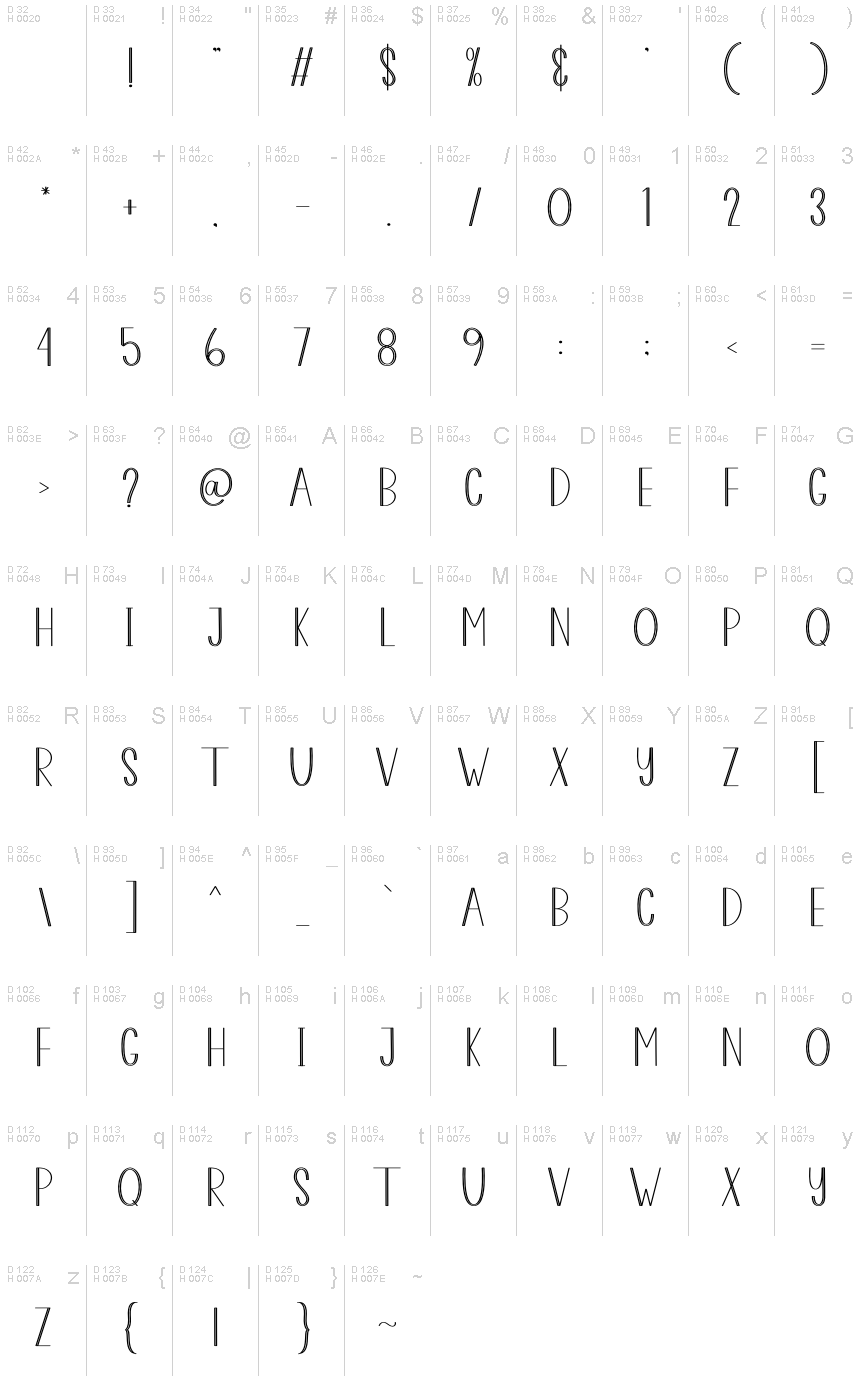
Presure
Presure, designed by Andi Moz, is a captivating handwritten display font that exudes a sweet and friendly allure. This condensed typeface boasts a playful, yet refined aesthetic, with each letter seamlessly blending together to create a harmonious and visually appealing composition. The font's organic, hand-crafted strokes and gentle curves infuse a sense of warmth and approachability, making it an ideal choice for projects seeking a touch of whimsy and charm.
This versatile font lends itself beautifully to a variety of design applications, from wedding invitations and greeting cards to branding and packaging. Its condensed width allows for versatile layout options, making it a suitable choice for projects where space is limited without compromising on readability and visual impact.